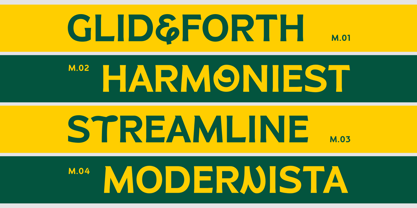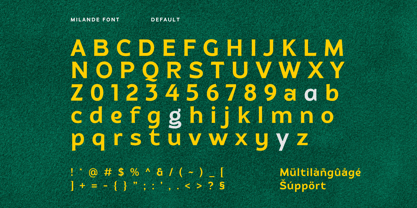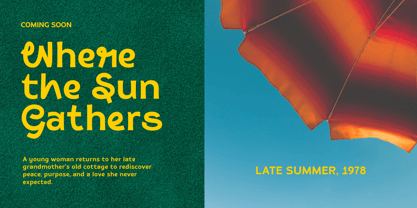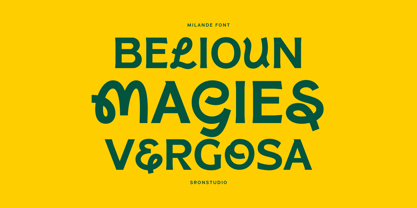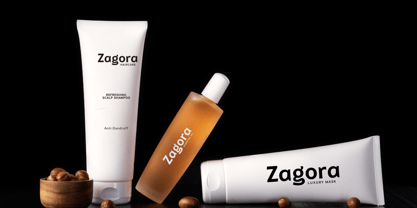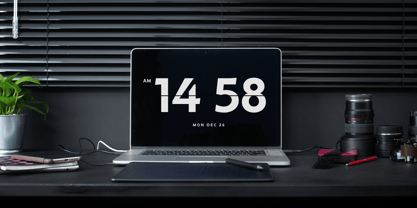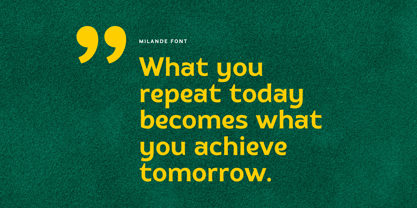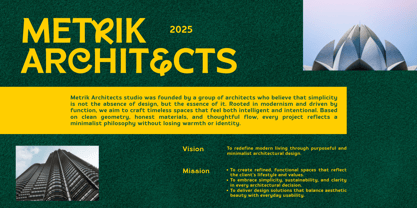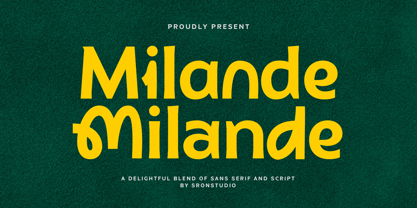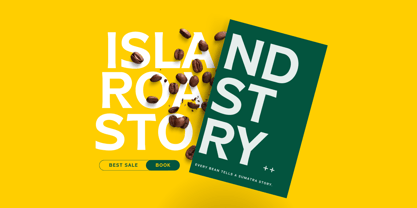
Milande
Milande is a modern sans serif font with a playful twist. Featuring clean lines combined with fun and unique alternate characters, Milande brings a fresh and cheerful vibe to your creative projects. Whether you're designing logos, social media posts, packaging, or branding materials, this font adds just the right balance of professionalism and personality. Let Milande spark your creativity with its versatility and charm!
- Fun alternates & ligatures
- Uppercase & lowercase characters
- Numerals & punctuation